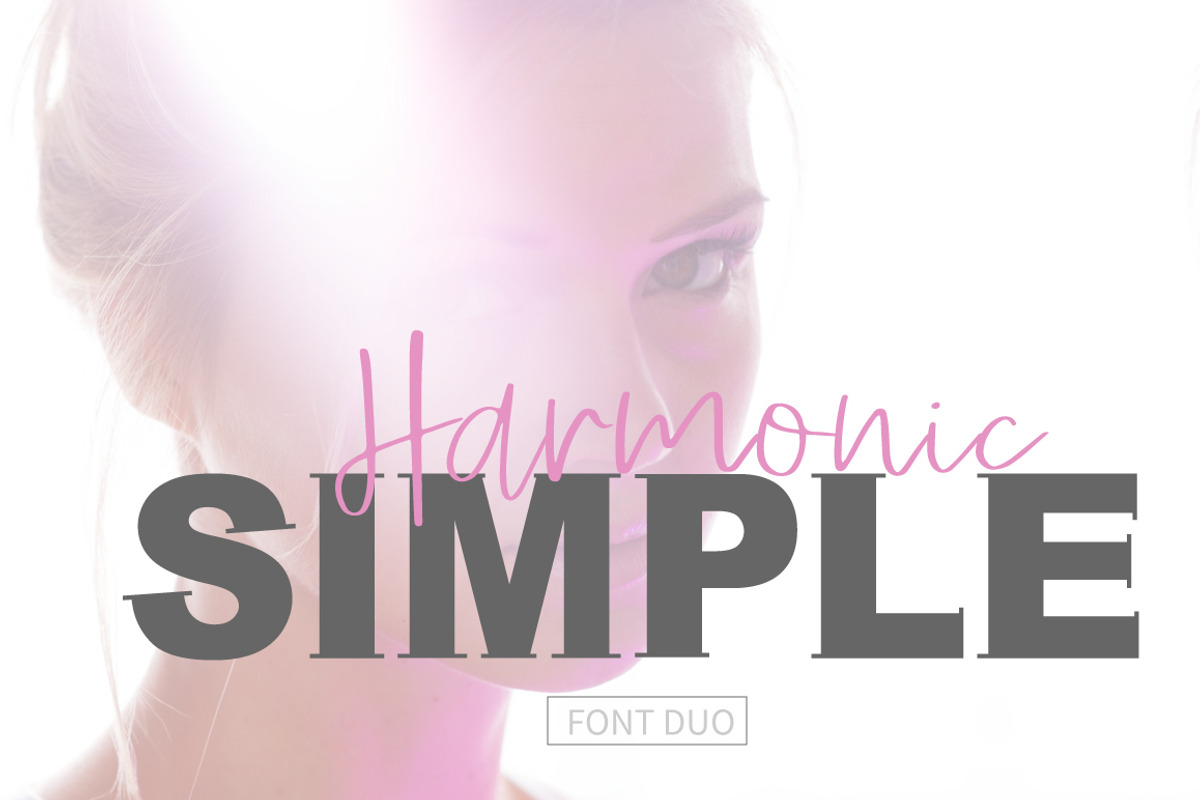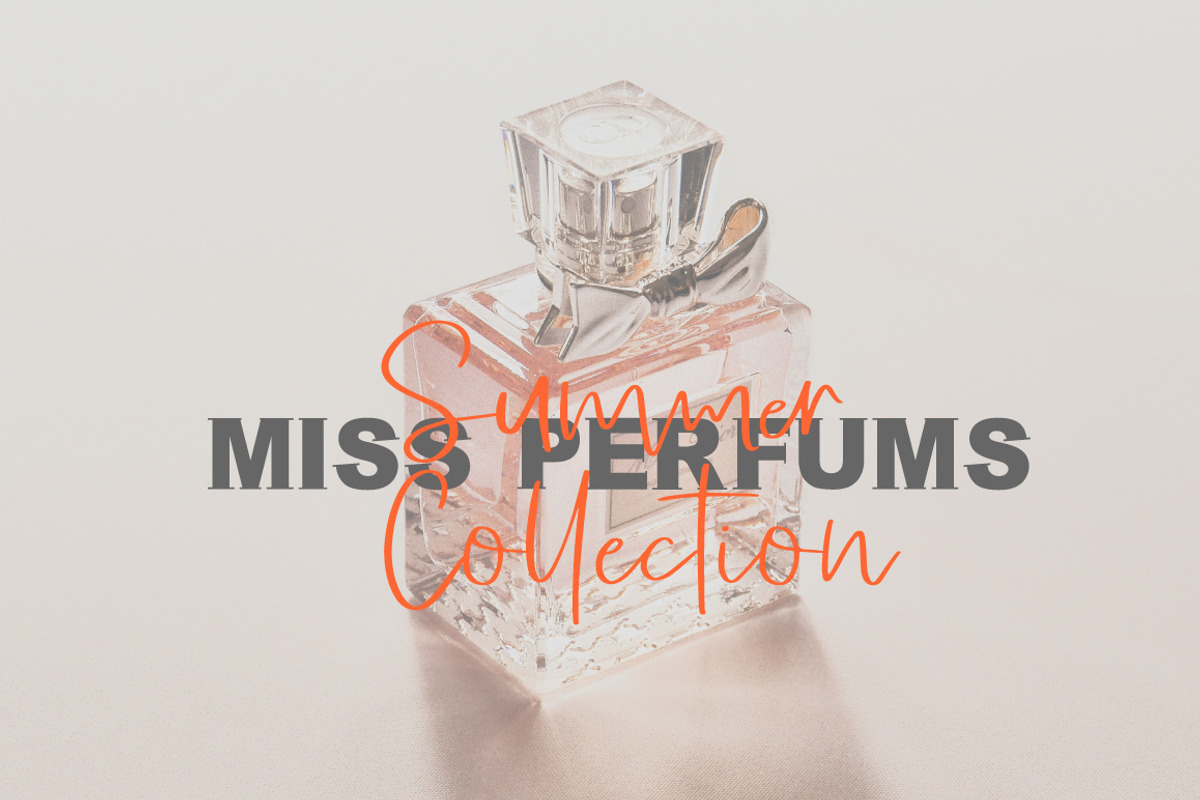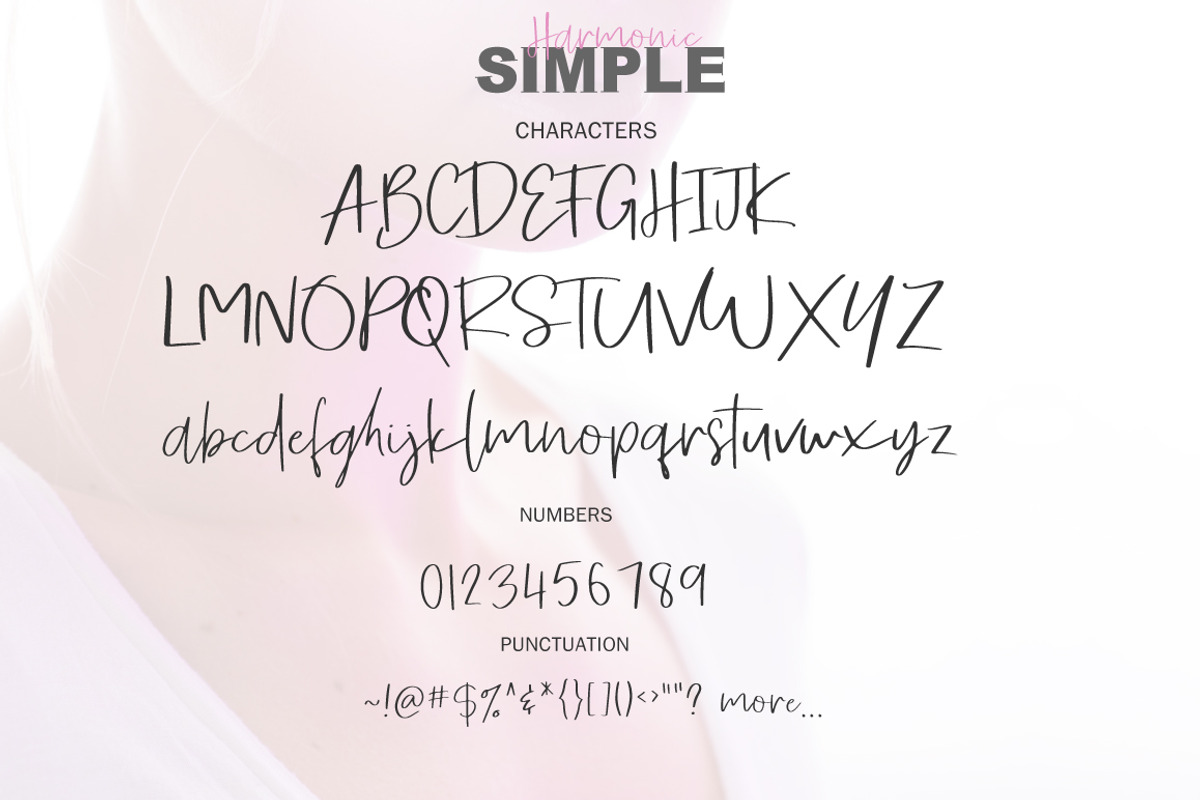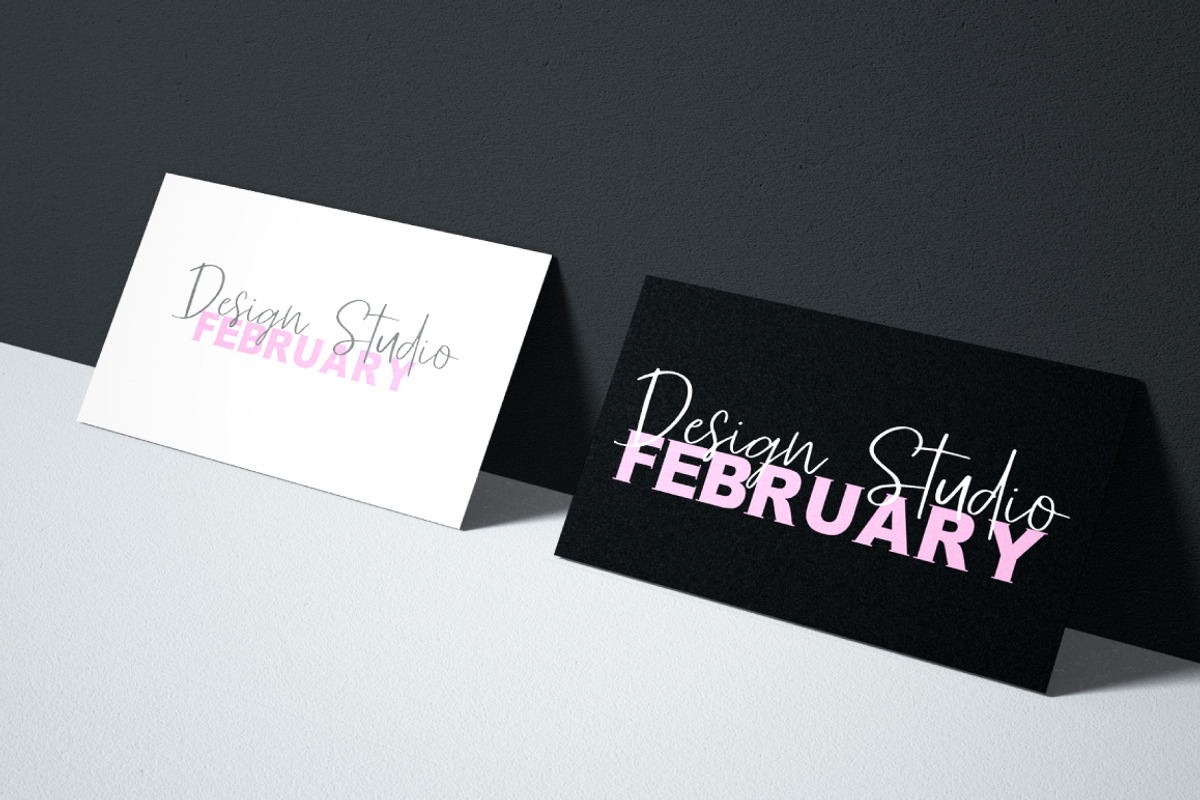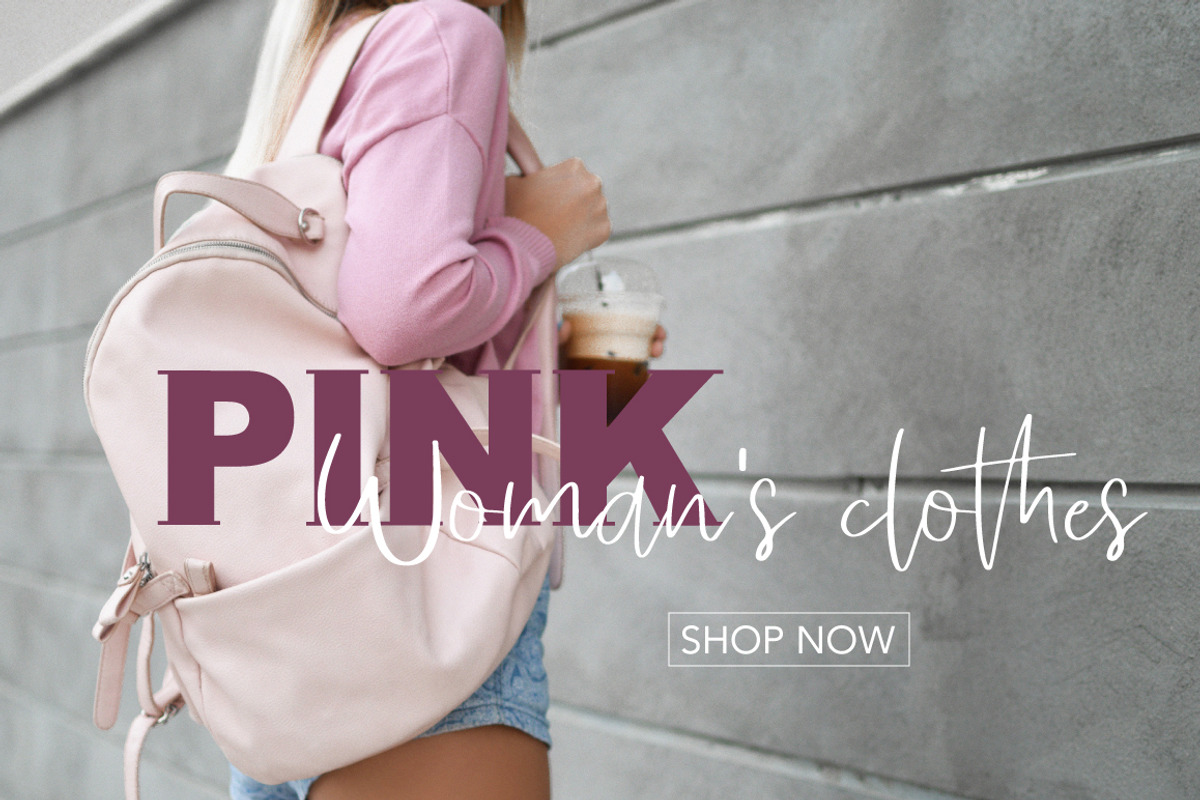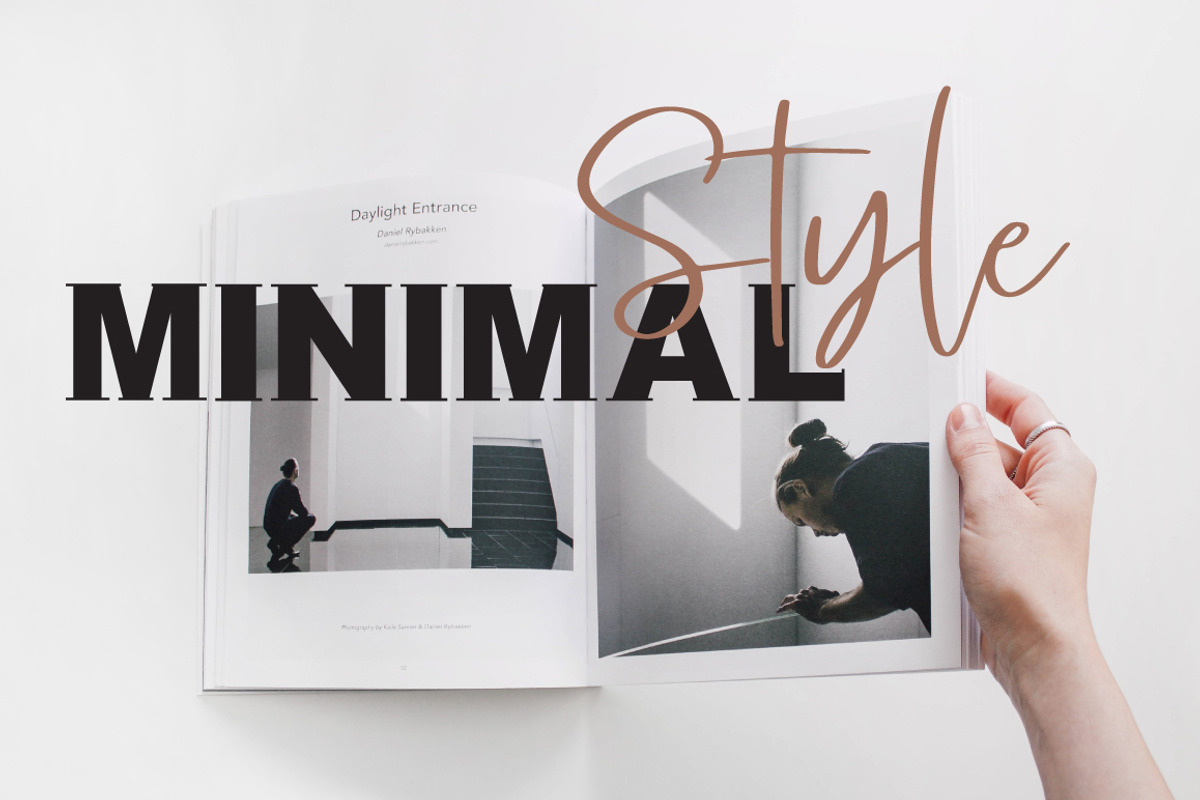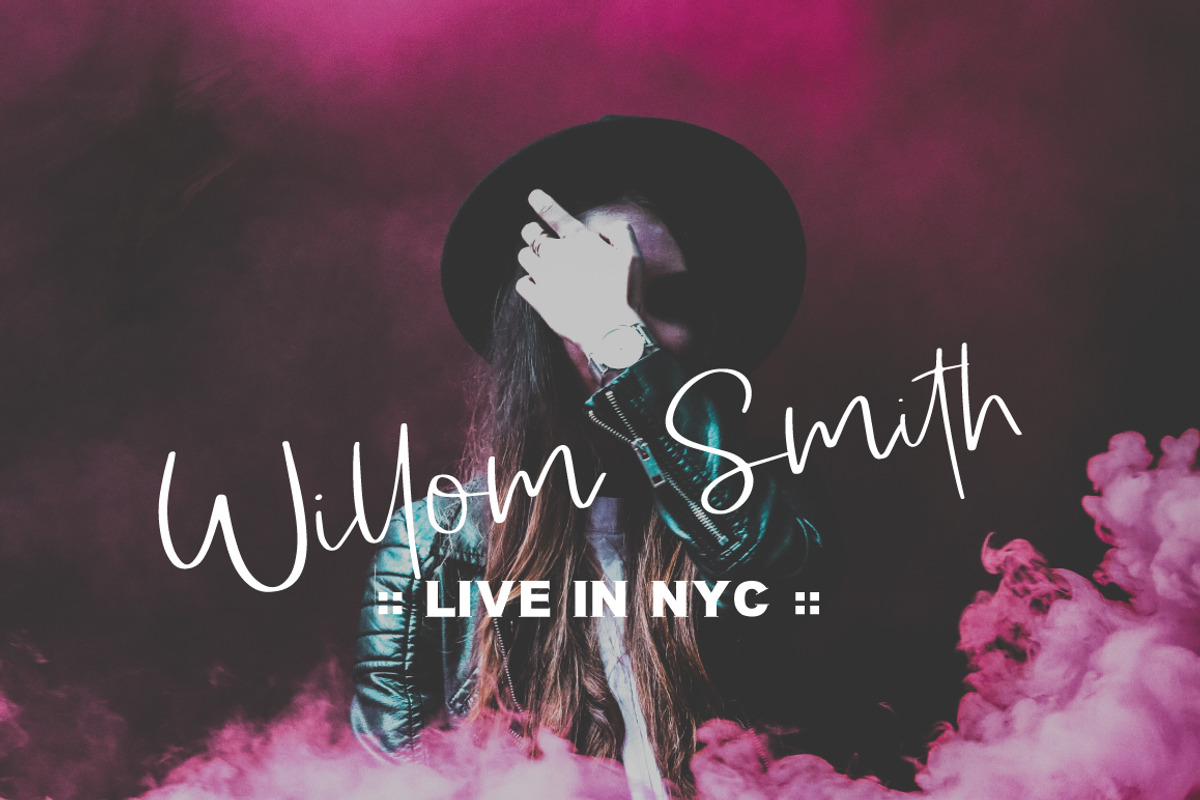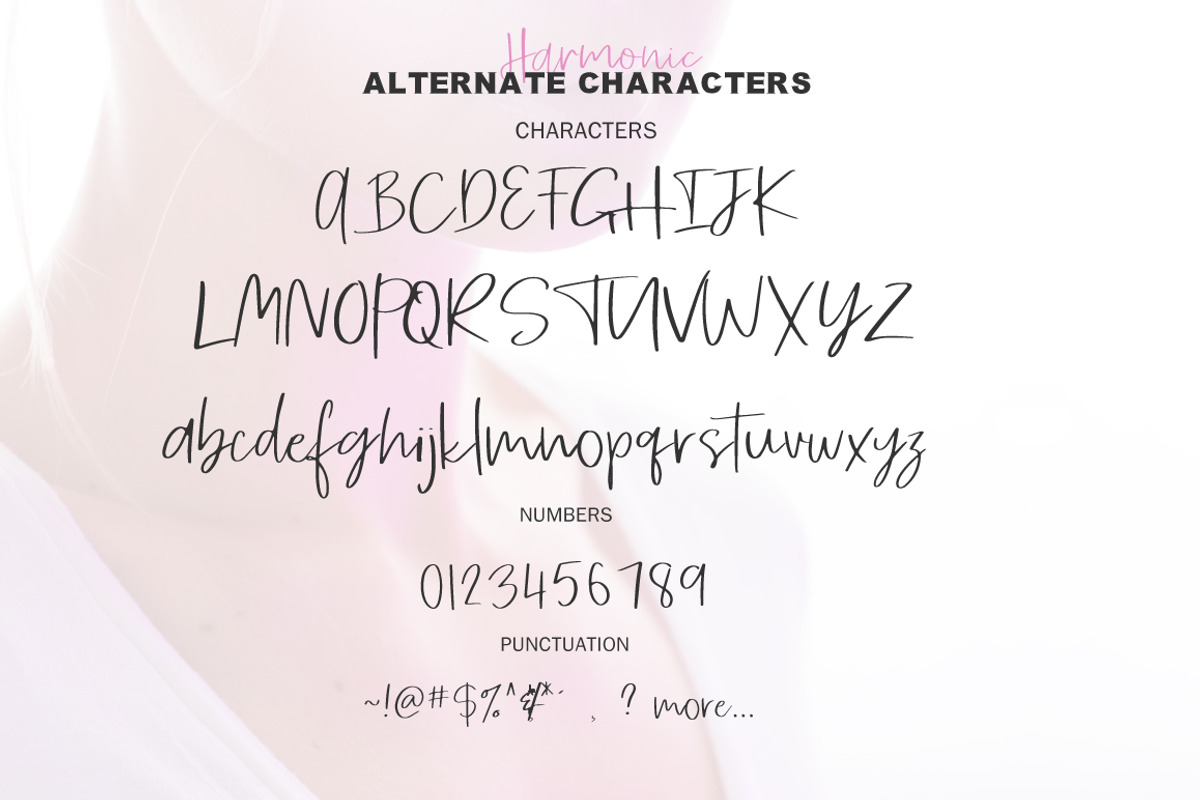
SIMPLE Harmonic Font Duo
SIMPLE HARMONIC is script font - A fashionable and super-Serif new handwriting font script with Modern style
Every single letter has been creative carefully and Perfectly Playful new font pair. This font is a perfect script designed for making your set of invitations, Brand, blog posts, and more completely beautiful
The script has alternate upper and lowercase character set
And you get 38 Ligatures